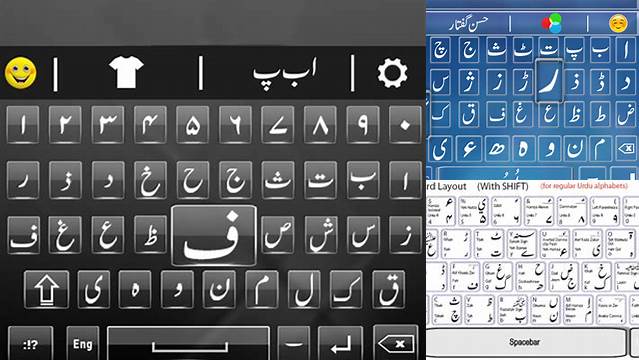
Why Use Urdu Fonts?
Urdu fonts are essential for anyone who wants to write in Urdu on their computer. The standard fonts that come with operating systems often don't support the Urdu script properly, leading to display issues and making it difficult to read and write. High-quality Urdu fonts not only ensure that your text is displayed correctly, but they also add a level of aesthetic appeal that can make your documents, presentations, and designs stand out. Whether you're a student, a professional, or simply someone who enjoys writing in Urdu, having a good collection of Urdu fonts is a must. Plus, let's be real, a beautiful font can make even the most mundane tasks feel a little more special. So, if you're ready to elevate your Urdu typing game, keep reading!
- Alif Urdu Font: Alif Urdu Font is a well-known font specifically designed for Urdu script, offering excellent readability and aesthetic appeal. It is available for download from various sources, ensuring you get a high-quality font for your writing needs.